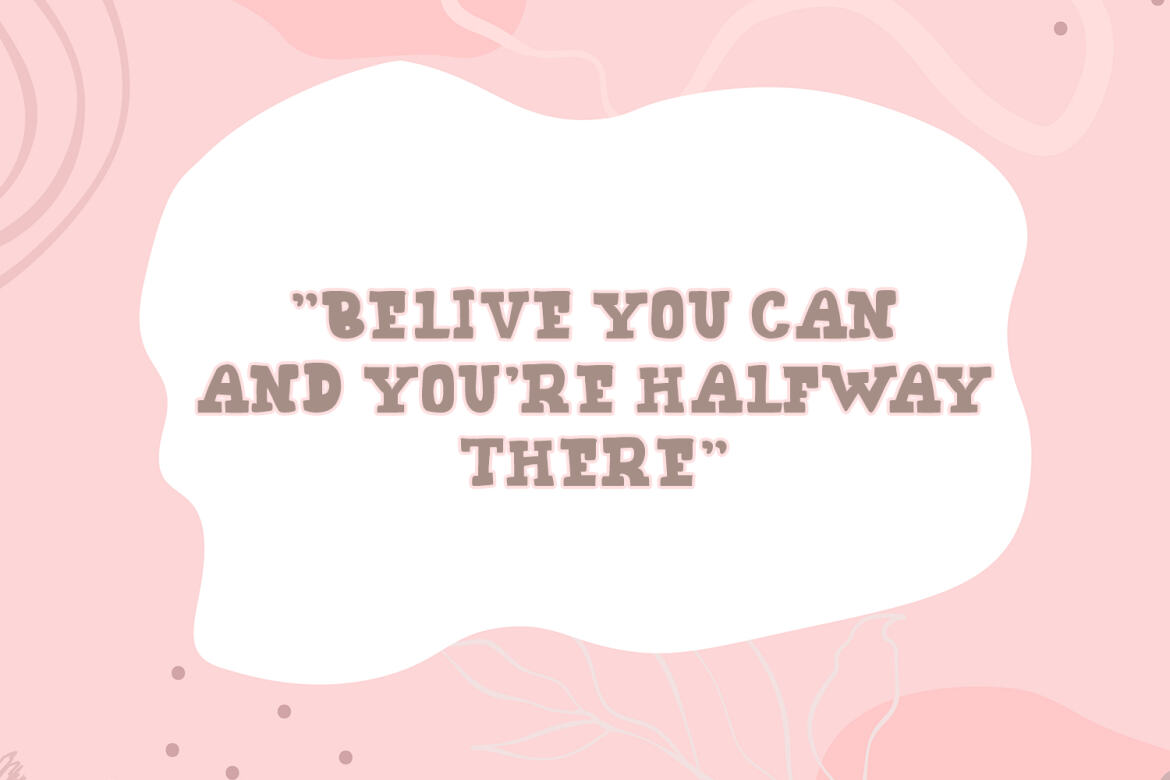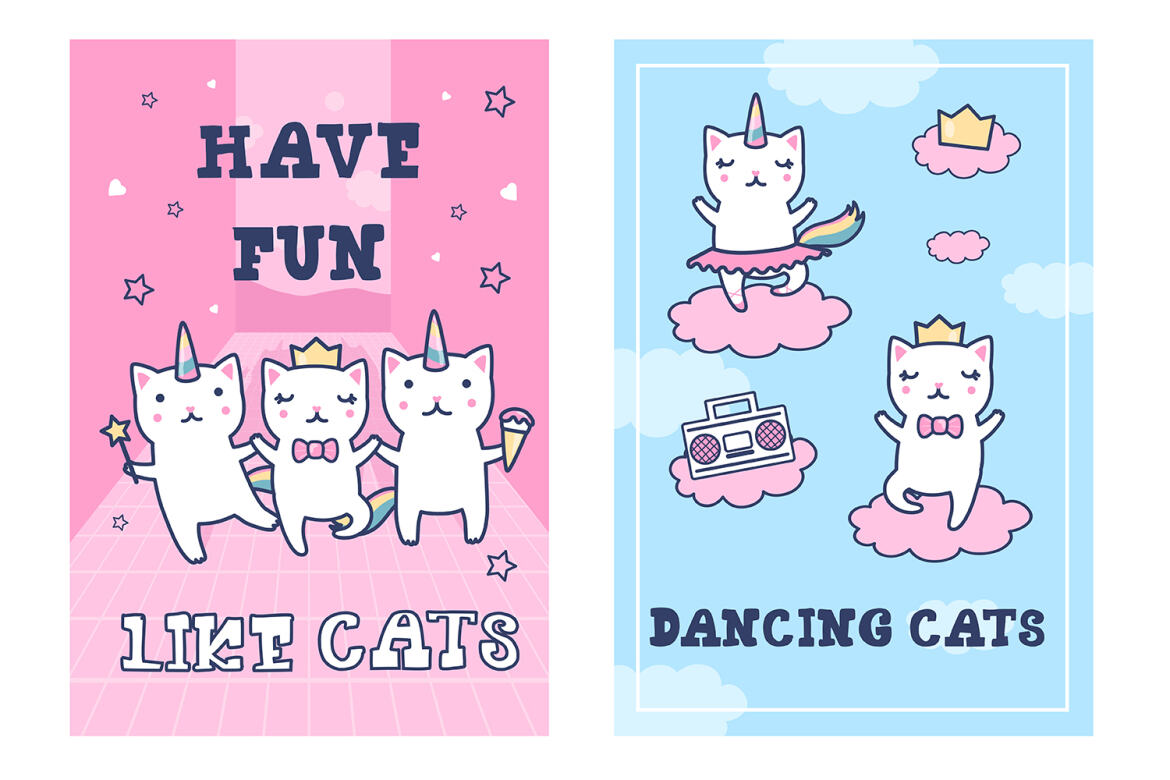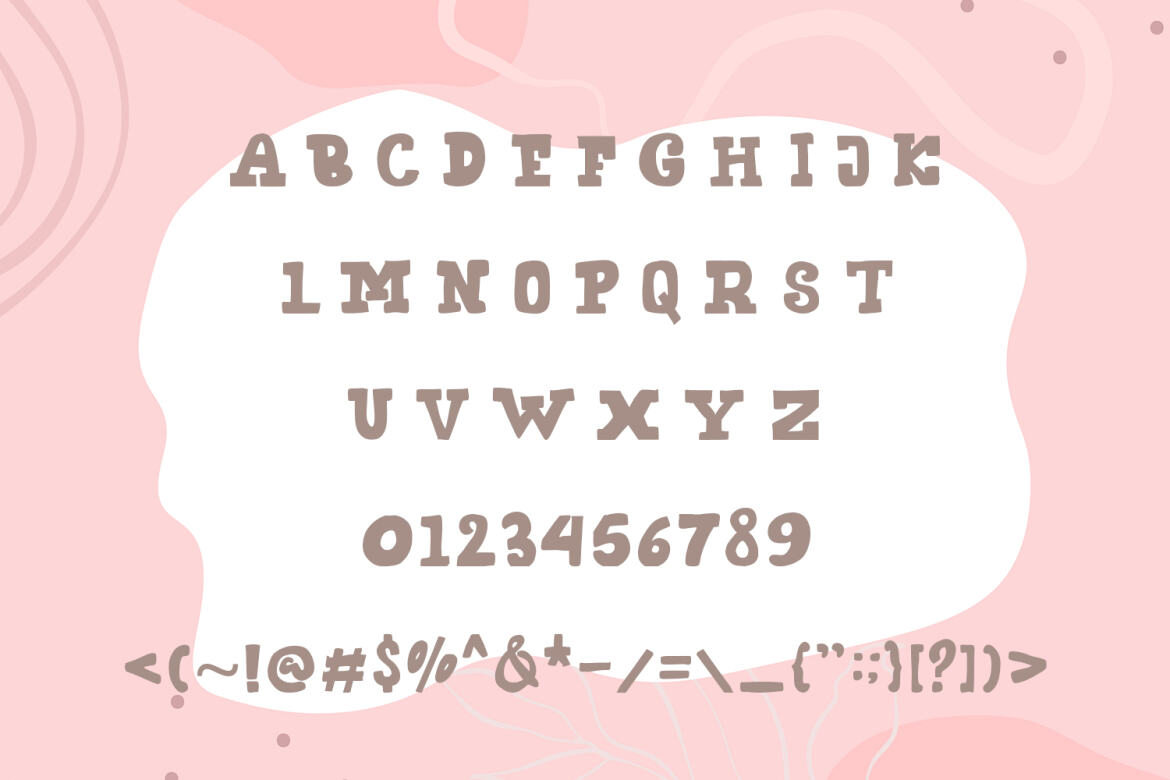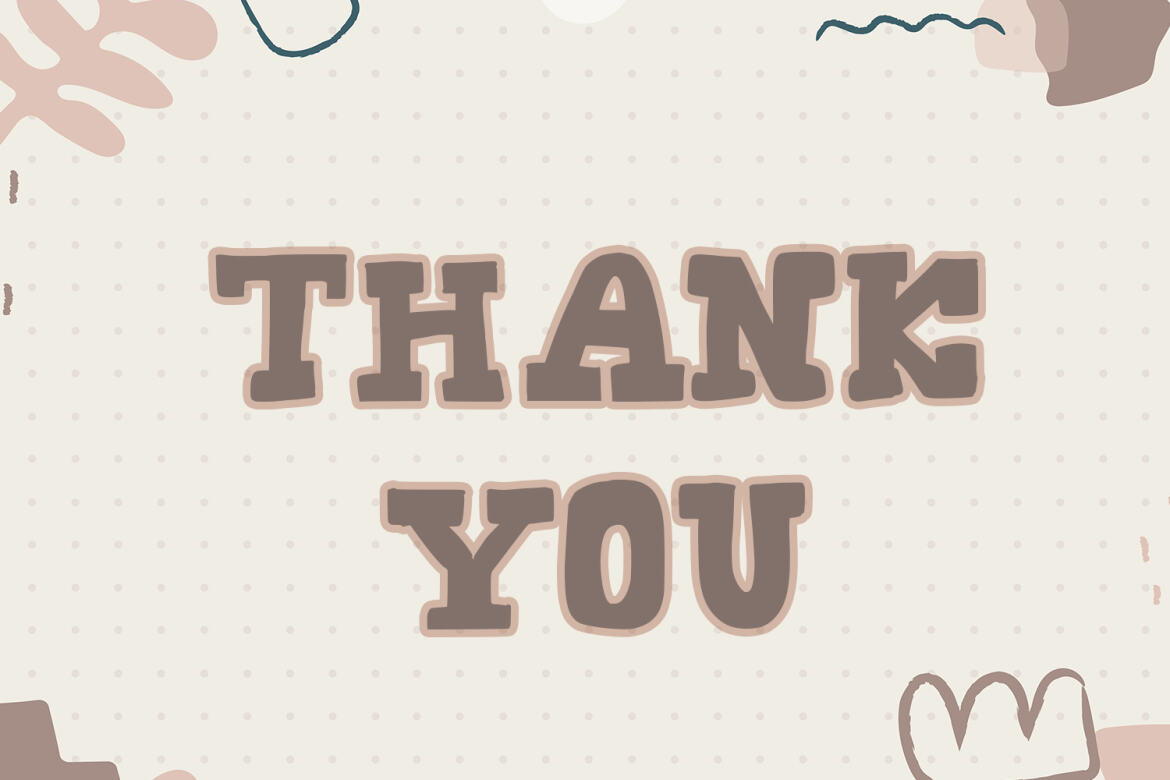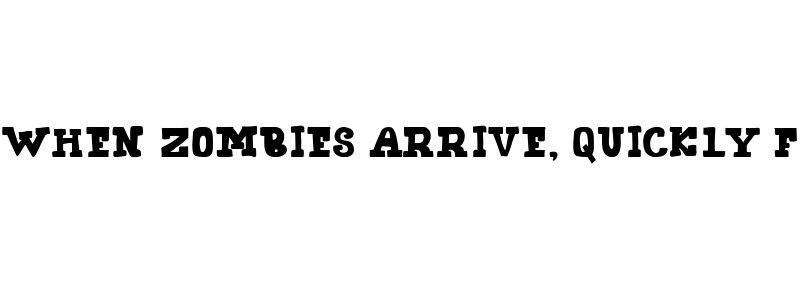
Cheese Rush FREE Display Font
Cheese Rush is a Display Font, This font is handmade and has a powerful character, The font is work specialty is good for product design like a Template/mockup, Post, T-shirt, Quote, New Years Present, typography design, etc. This product is inspirational for your creative design.